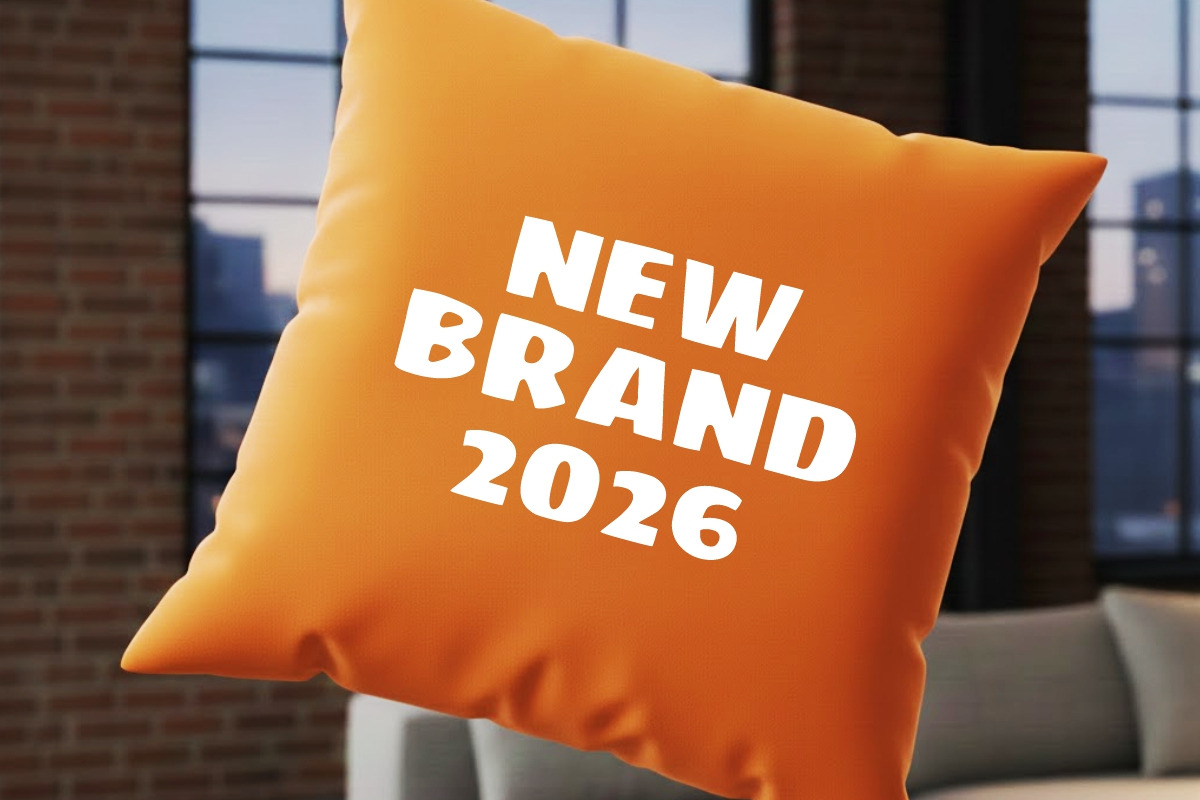
Comic Seven
Comic Seven is a bold vintage, simple elegant display font. Its informal style and casual vibe will make this font a go-to choice for each of your creations that require a relaxed touch. It is suitable for any product packaging, invitation, quote, t-shirt, label, poster, or logo that you wish to develop!